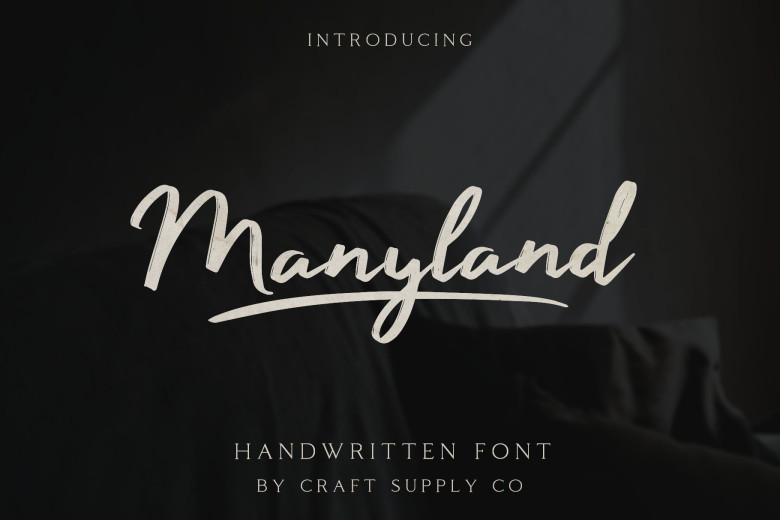
Manyland Font
Manyland font is a monoline handwritten font. It exploits letter-to-letter changes typical of cursive handwriting by using style points which are controlled through OpenType Contextual Alternates.
Manyland Handwritten Font